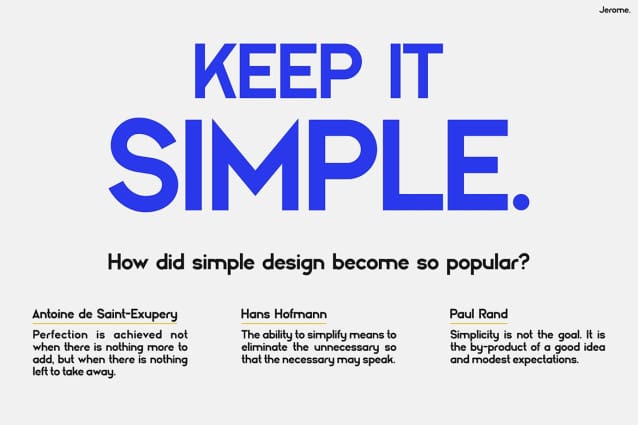
Jerome Font
Jerome Font redefines modern typography with a perfect blend of style, structure, and sophistication. This typeface doesn’t just exist — it leads. Every letter feels intentional, with precise geometry that reflects innovation and confidence. Moreover, its sleek design and smooth balance make it ideal for projects that need a futuristic yet timeless aesthetic. Because of its sharp alignment and clean curves, Jerome delivers clarity that instantly elevates any design.
In addition, its minimalist form carries strength without losing warmth. Each character flows effortlessly, creating a visual experience that feels both bold and refined. As a result, your work gains a distinct edge — professional, polished, and powerfully modern. Whether you’re designing tech interfaces, futuristic posters, or high-end branding, Futuristic Font Jerome adapts beautifully and ensures your message shines with precision.
Furthermore, Jerome’s geometric harmony makes it stand out in every context. From bold headlines to subtle taglines, it offers versatility that few fonts can match. Therefore, it’s not just a font — it’s a creative statement that inspires forward-thinking design.